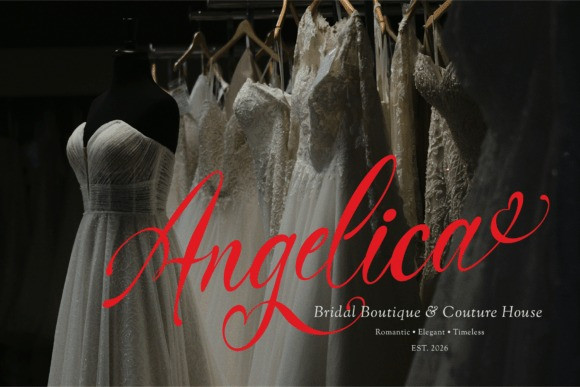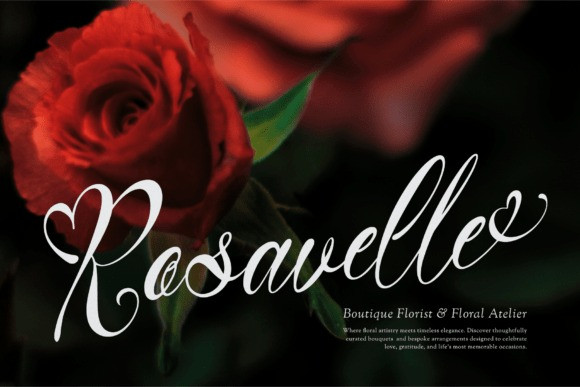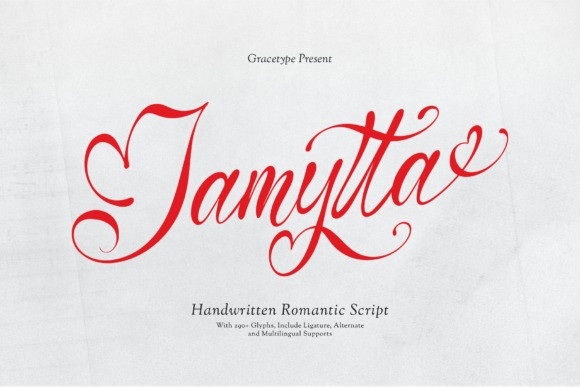
Jamytta Font
Jamytta Font an exquisitely fluid handwritten calligraphy font. With its elegant structural baseline, smooth calligraphy lines, and poetic posture, Jamytta is the premier choice for independent cosmetic house logos, premium floral studio branding, custom wedding invitations, boutique fragrance packaging, and high-impact social media quotes.